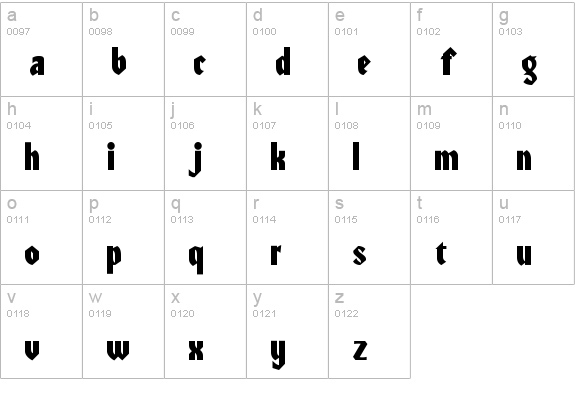
Warszawa Font Details
Introducing Warszawa, a stunning font that effortlessly blends elegance and modernity. With its sleek lines and sophisticated curves, Warszawa is the perfect choice for those seeking a versatile typeface that exudes a sense of timeless beauty. Whether you're designing a logo, creating stunning graphics, or crafting eye-catching headlines, Warszawa's exquisite letterforms will elevate your work to new heights. Its balanced proportions and clean, crisp lines deliver a sense of clarity and professionalism, making it an ideal choice for both digital and print projects. But what truly sets Warszawa apart is its availability as a free download at FontsMarket.com. Yes, you read that right - this exceptional font is freely accessible, allowing designers and typographers around the world to harness its power without any barriers. FontsMarket.com is your one-stop destination for all your font needs, and Warszawa is just one of the many gems waiting to be discovered. So why wait? Don't miss out on the opportunity to enhance your creative projects with Warszawa. Download it for free at FontsMarket.com today and experience the beauty and versatility of this remarkable typeface. Unleash your creativity and let Warszawa redefine the way you communicate visually.